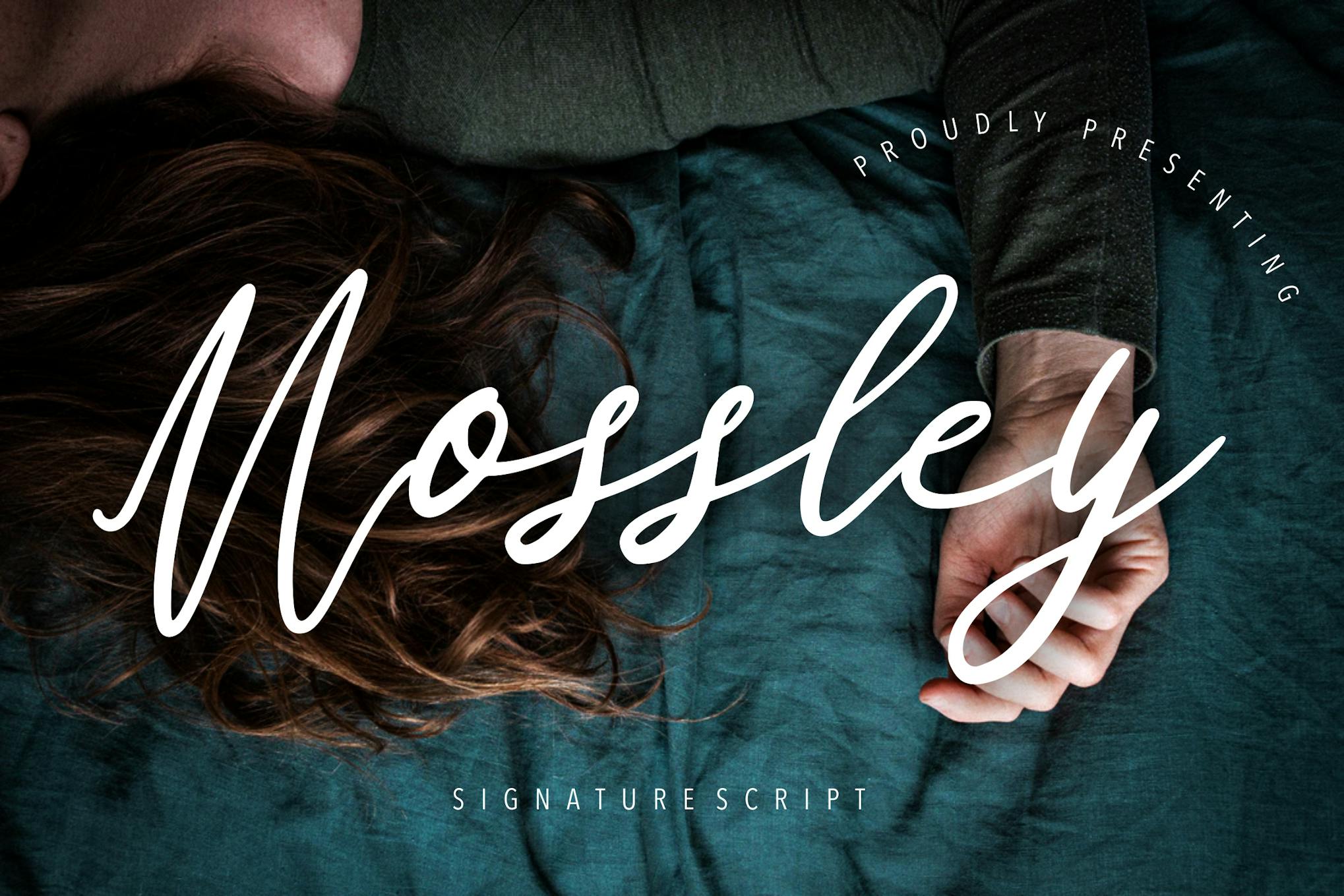
Mossley Signature Wedding Font
The Mossley Signature Wedding Font excels in charming design applications including countryside wedding invitations, village bridal branding, pastoral ceremony logos, rural product packaging, countryside business cards, village portfolios, pastoral greeting cards, rural social media graphics, countryside event signage, and village marketing materials. Its village script style makes it perfect for projects requiring pastoral elegance that communicates countryside charm and establishes rural brand positioning with audiences seeking village wedding experiences and pastoral sophistication.
What makes the Mossley Signature Wedding Font genuinely exciting is its exceptional ability to capture the countryside charm and village beauty of pastoral weddings through charmingly crafted letterforms. The font features flowing, village-inspired strokes with pastoral flourishes and countryside proportions that create a distinctly rural appearance. Each character displays remarkable attention to village detail with countryside curves, pastoral connections, and rural spacing that give text a beautifully charming, hand-lettered quality. The font's village character and pastoral rhythm create an atmosphere of countryside elegance while maintaining rural sophistication and wedding authenticity.
The Mossley Signature Wedding Font family typically includes regular weight with extensive character coverage, featuring uppercase and lowercase letters, numerals, punctuation marks, and international characters. The typeface often incorporates stylistic alternates, contextual ligatures, and pastoral swashes that enhance its signature countryside appeal. These additional elements provide designers with creative flexibility to customize text appearance and achieve more natural-looking village handwriting that reflects the font's pastoral and rural character.
This countryside signature font distinguishes itself through its remarkable balance of village charm and sophisticated elegance. Unlike urban or metropolitan fonts that lack pastoral appeal, Mossley Signature Wedding Font embraces the power of rural design to create authentic connections with countryside wedding audiences. The font's village character makes it essential for pastoral wedding planners, countryside brands, and rural celebration businesses where creating village wedding experiences and pastoral memories is fundamental to success in countryside wedding markets.